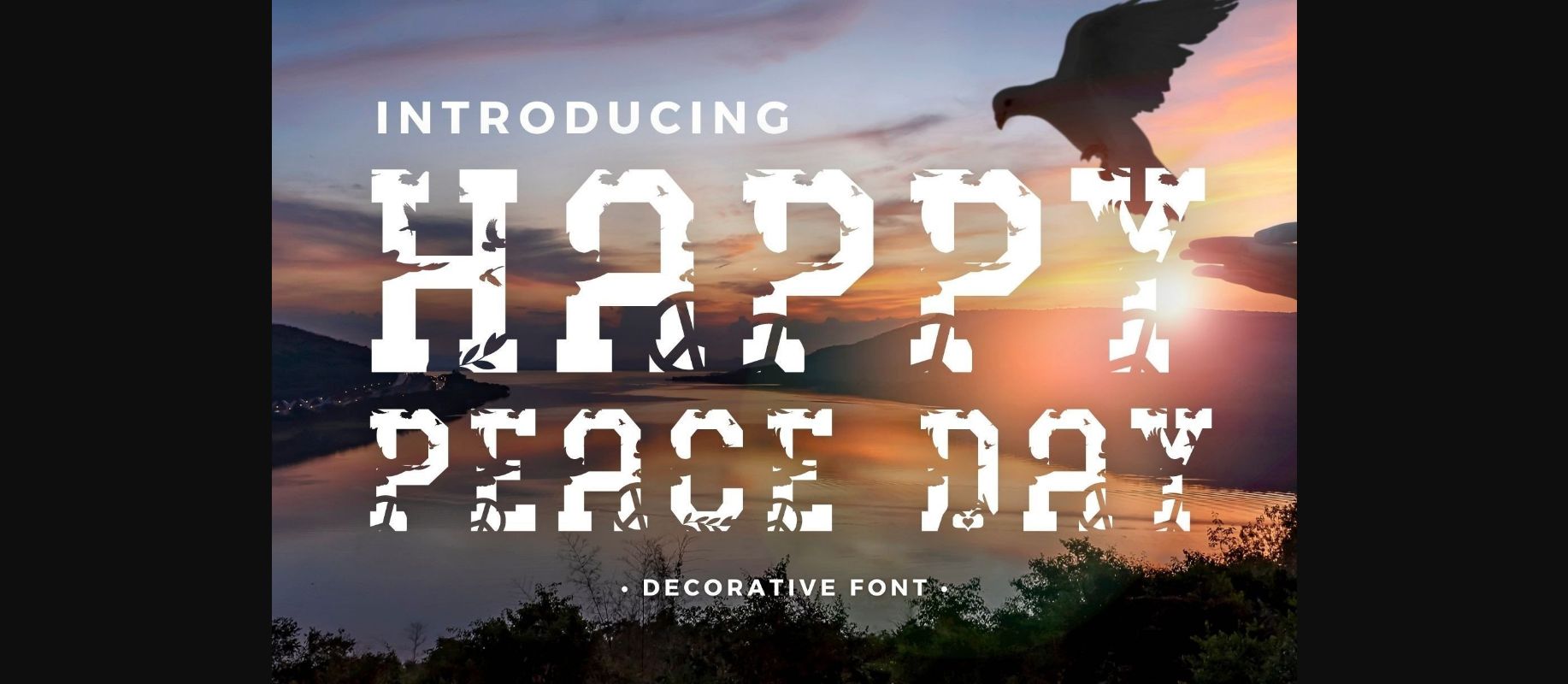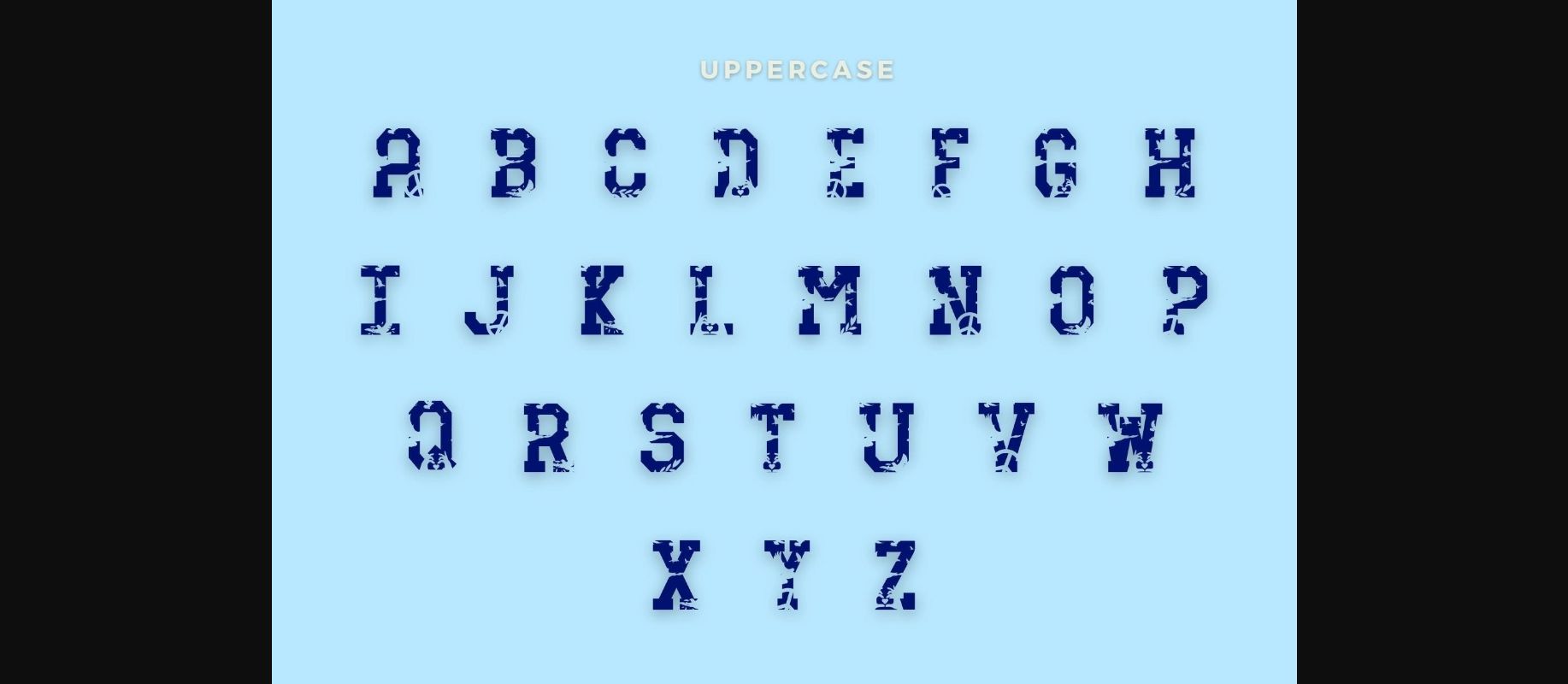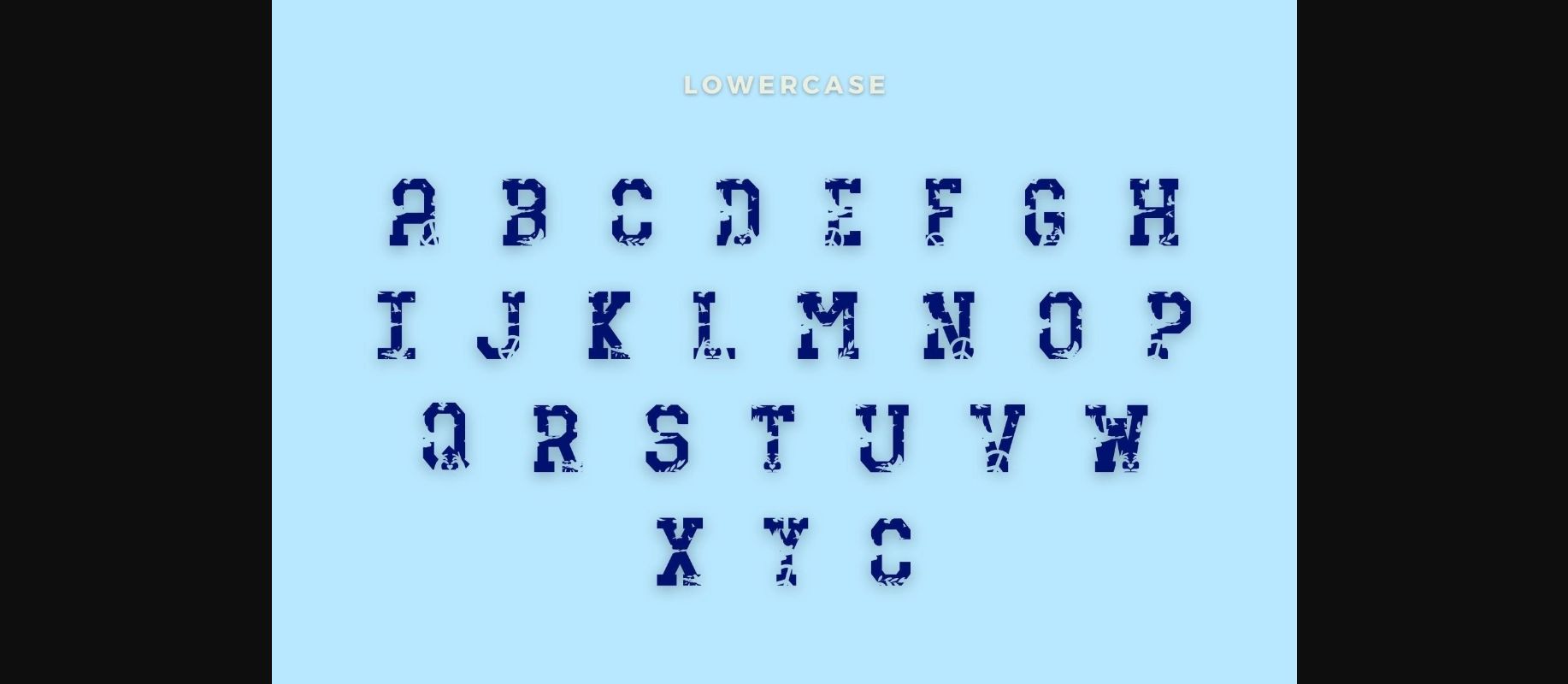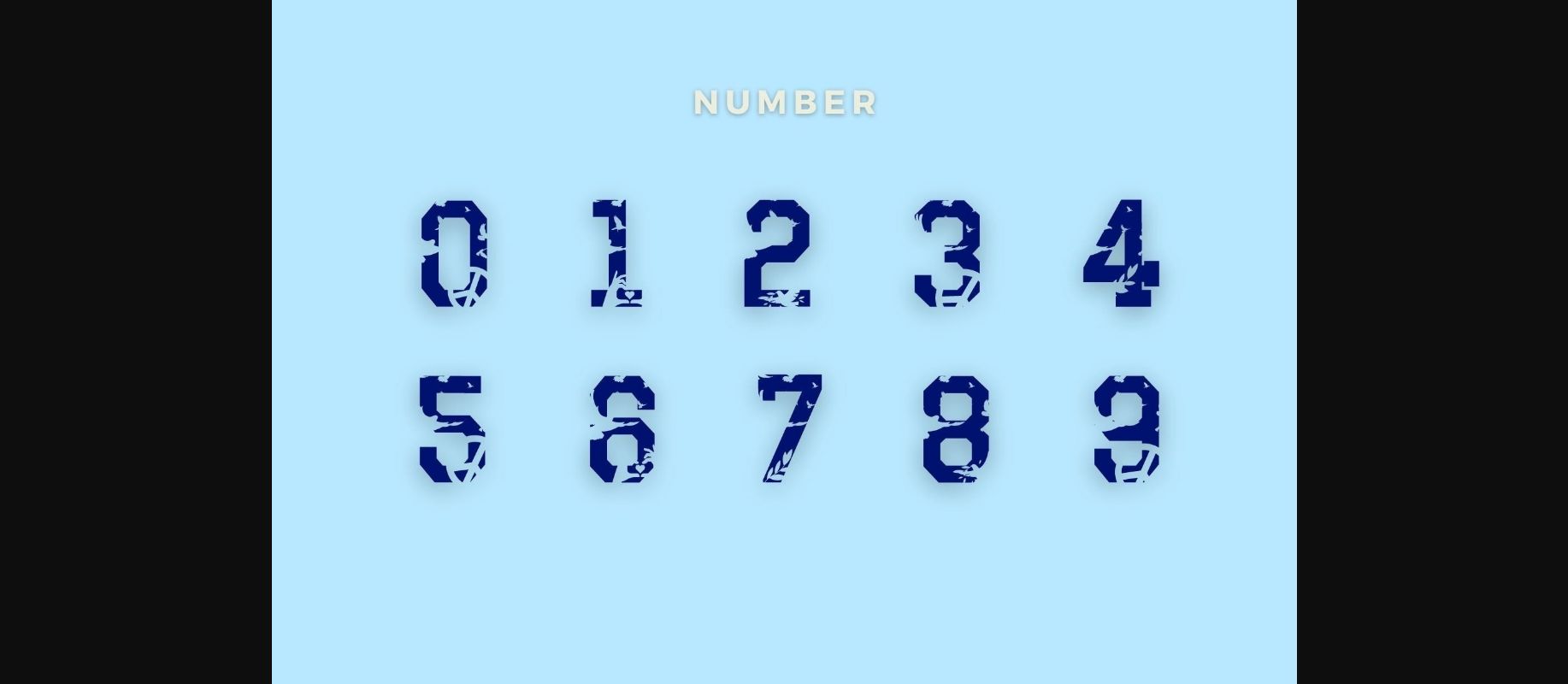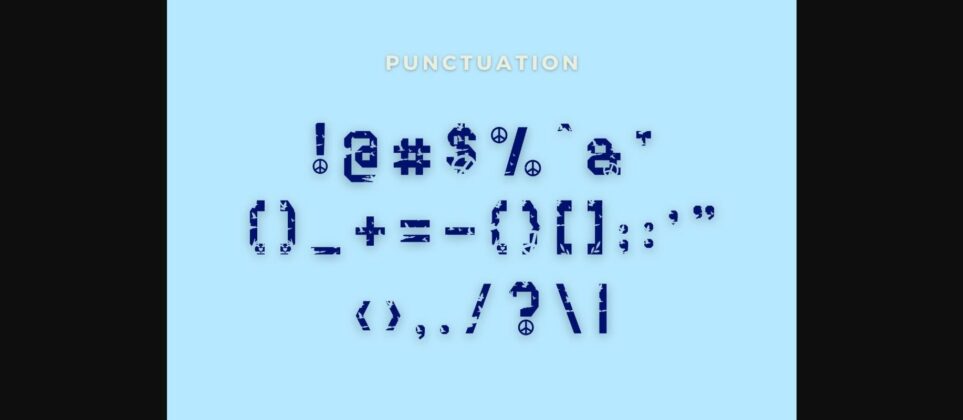
Happy Peace Day Font
About Happy Peace Day Font
Happy Peace Day is a fun and lovely decorative font. This typeface will enhance your craft with little effort, making your product stand out from the competition.